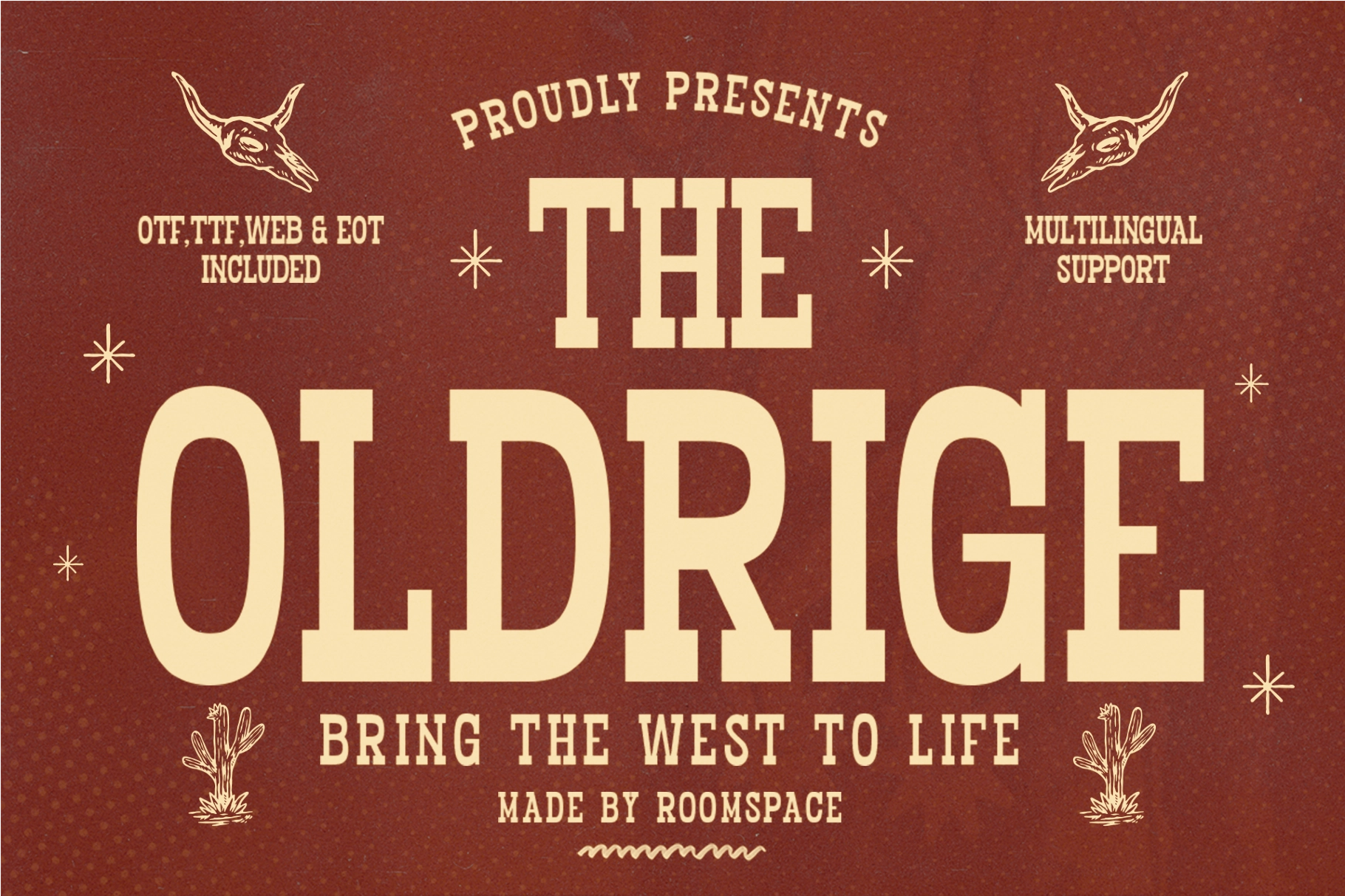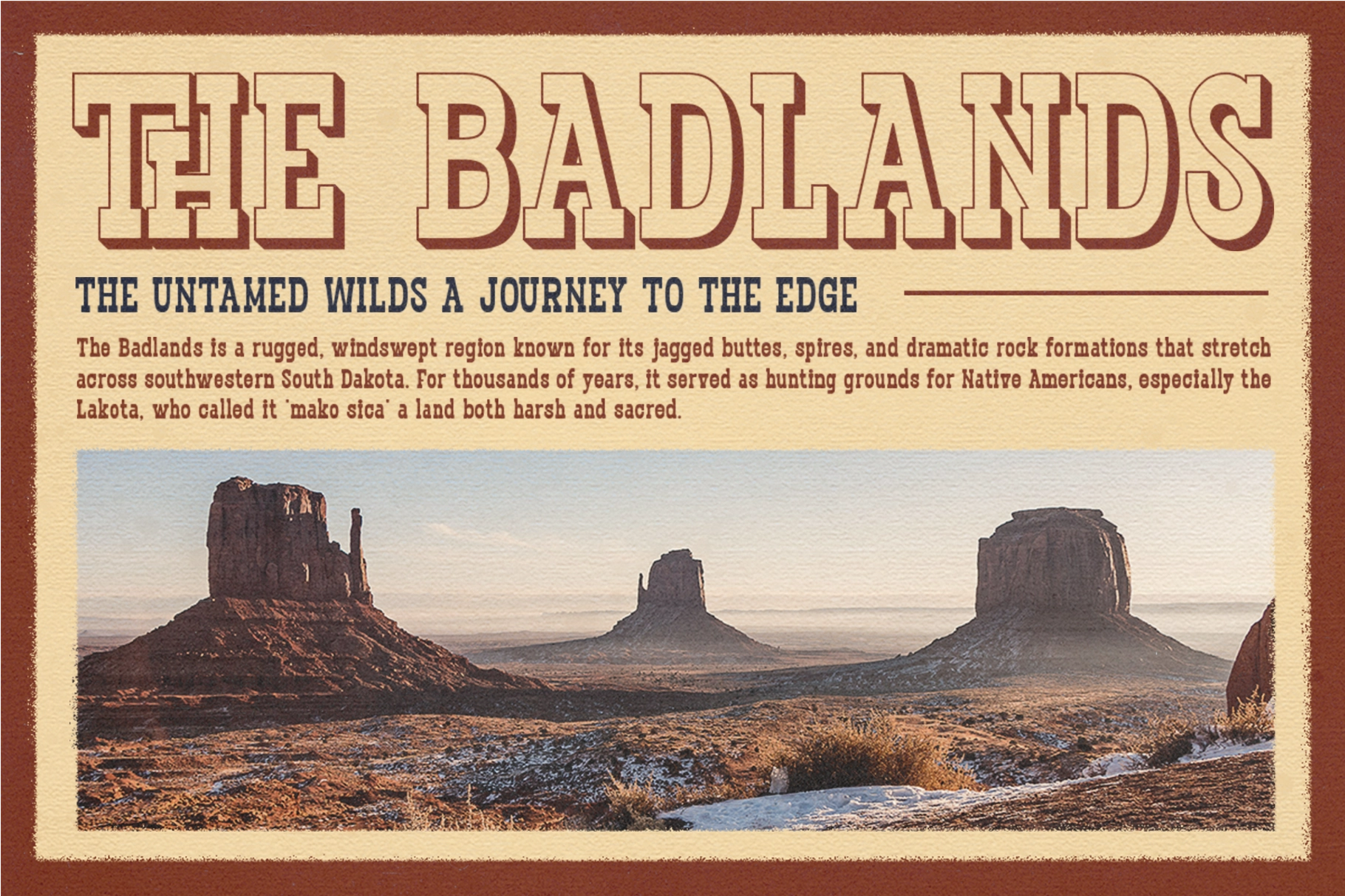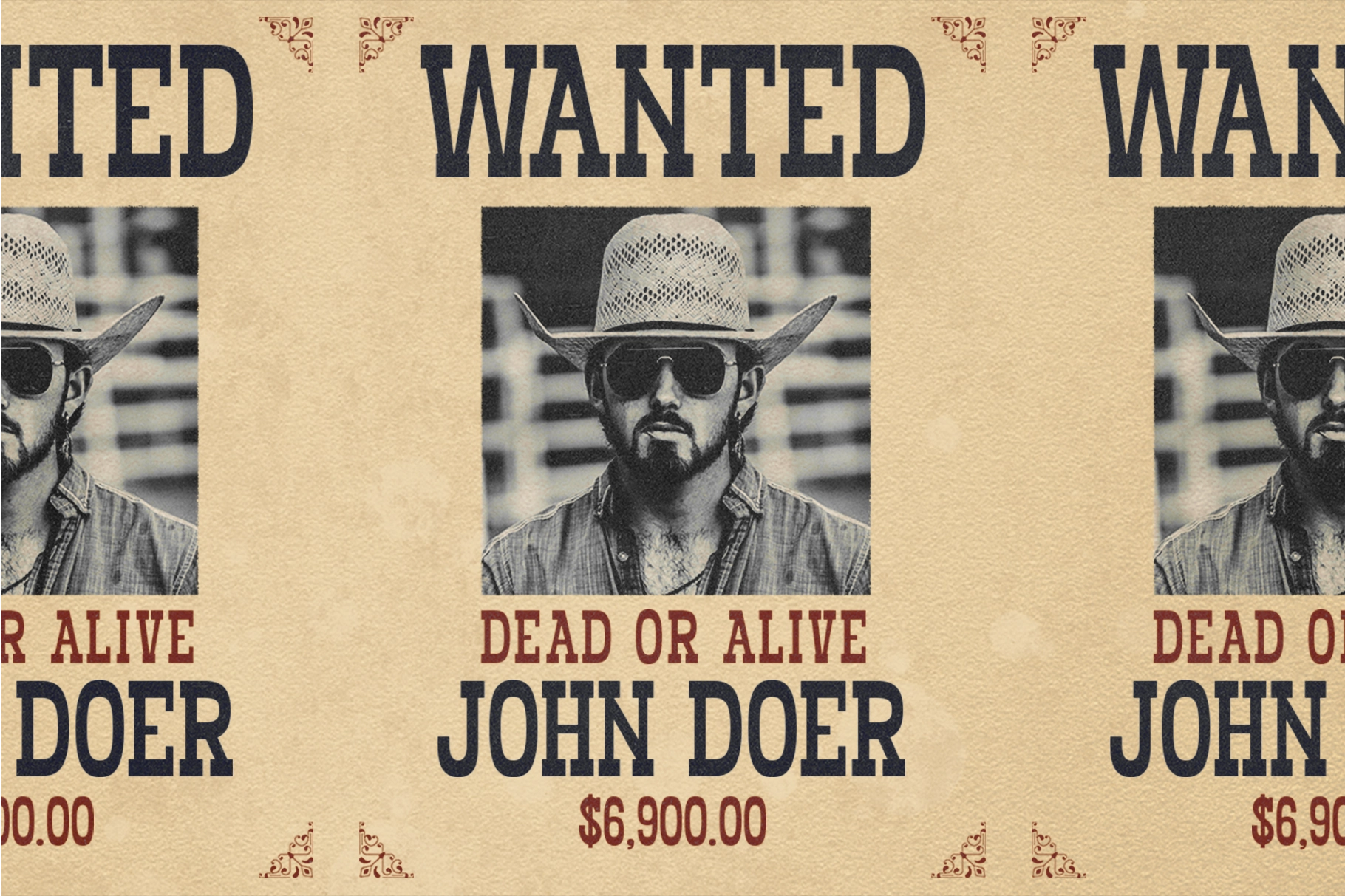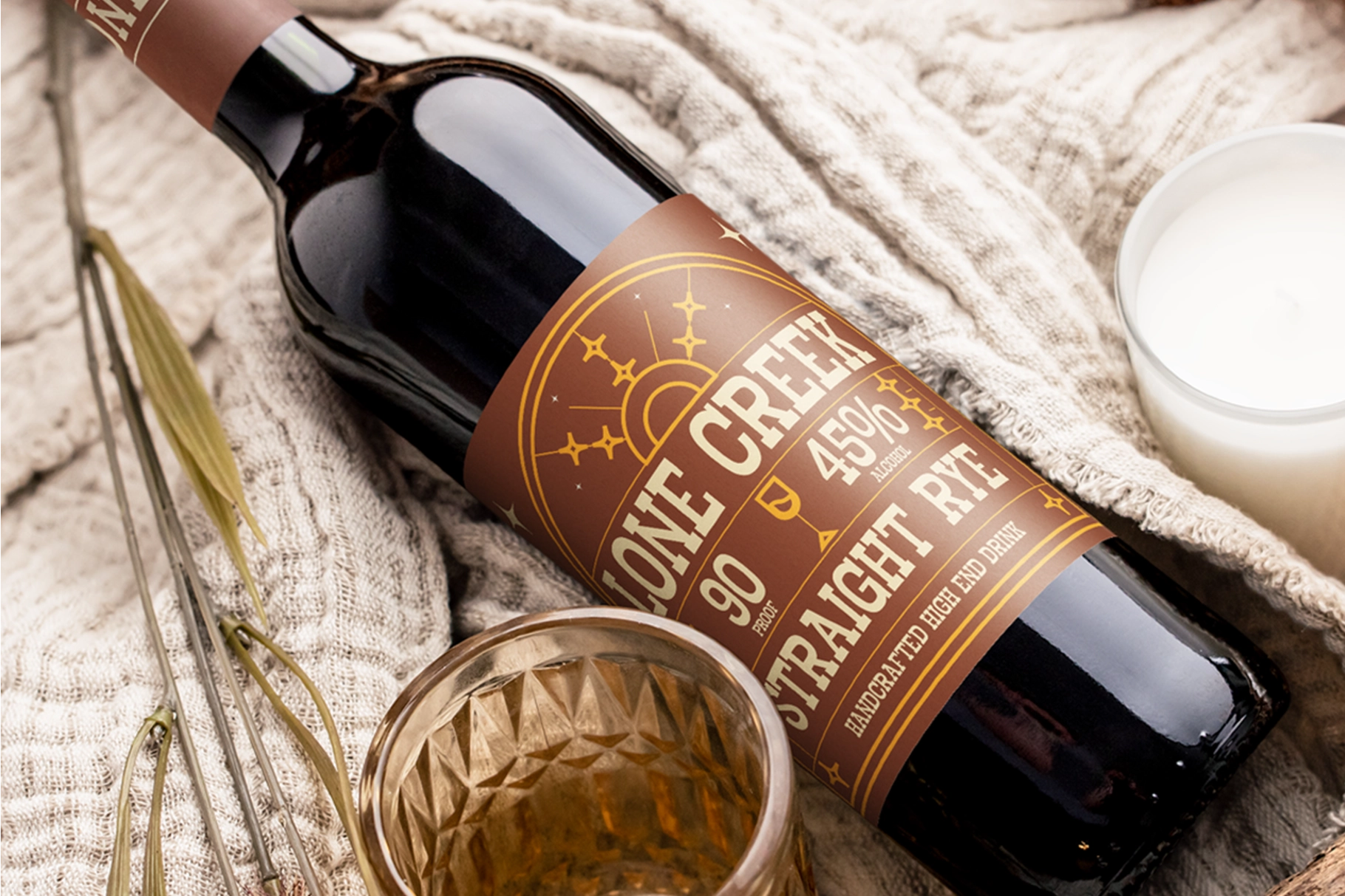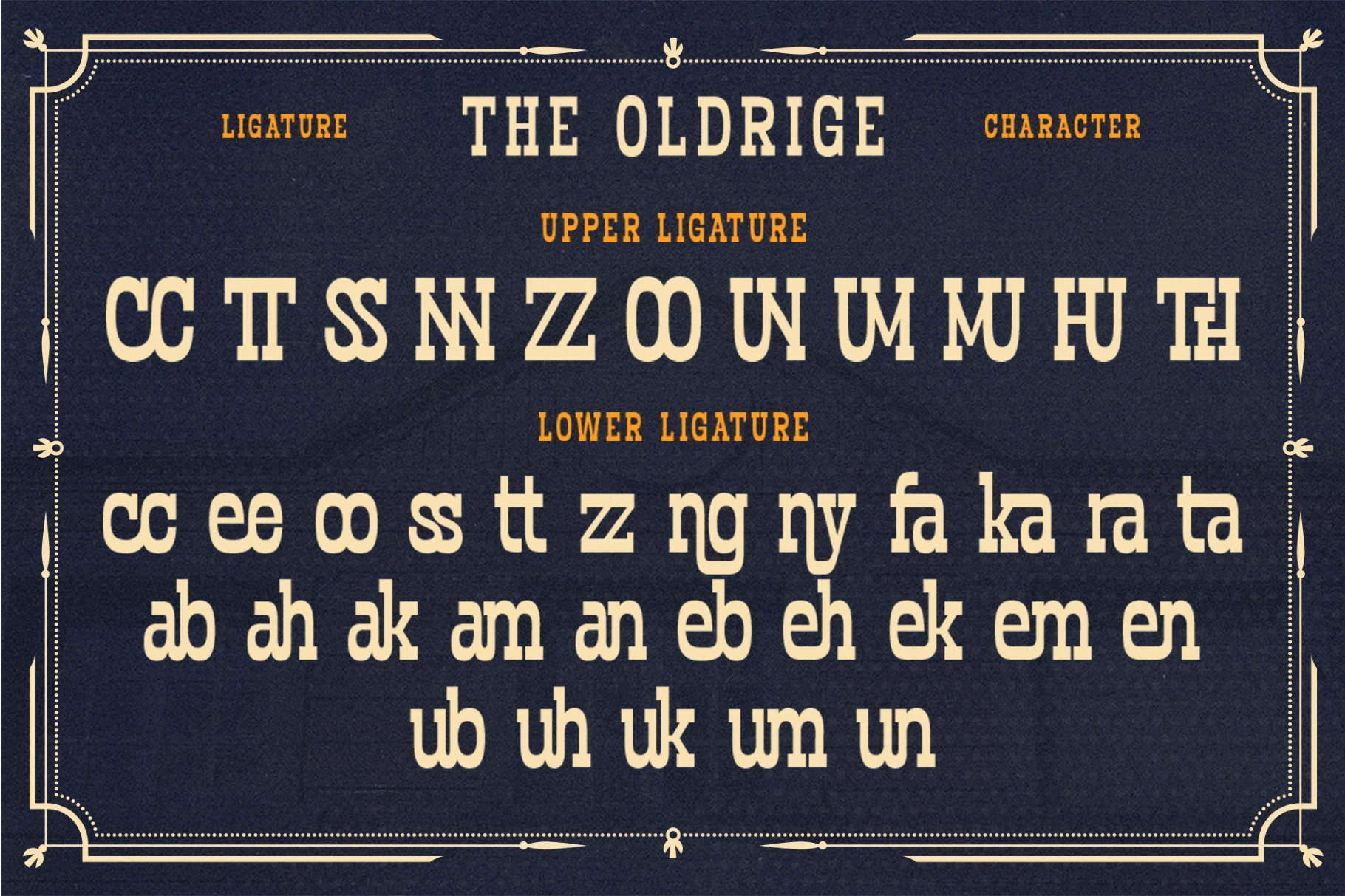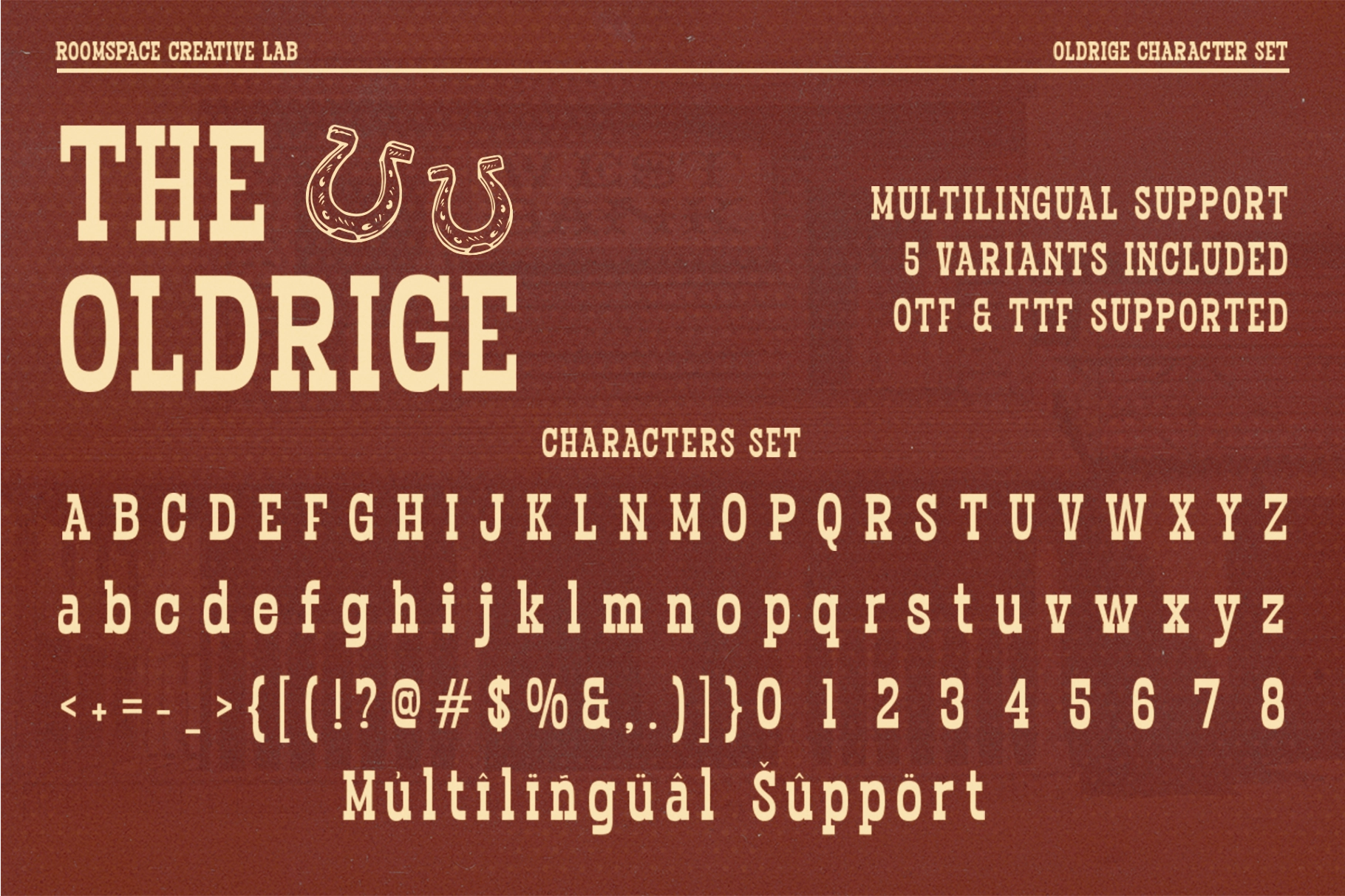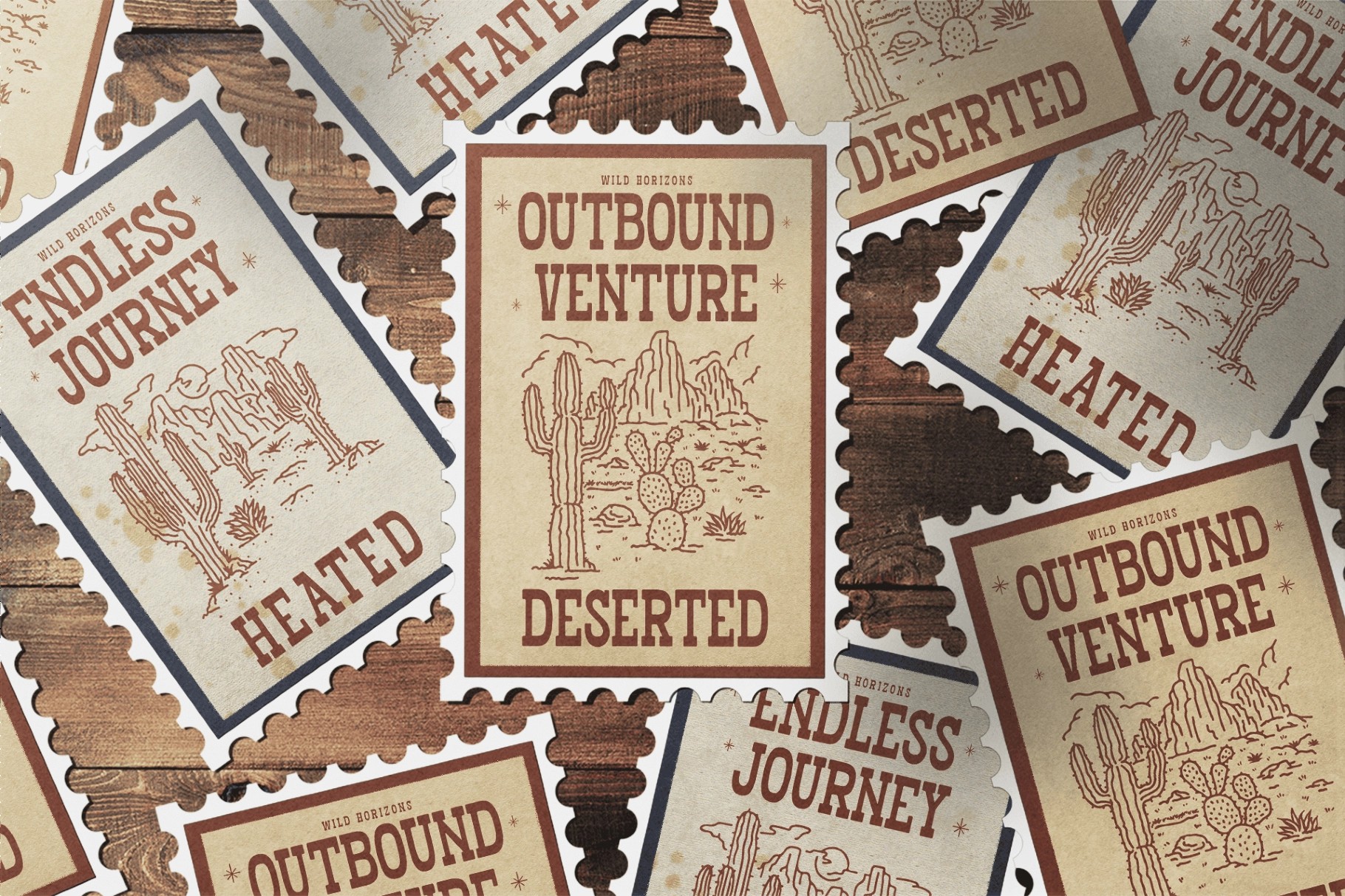
Oldridge - Bold Western Serif Font
A western display serif with high contrast, spurred slab serifs, and a broad wood-type stance. The letters carry the grit of frontier broadsides, saloon signs, rodeo posters, and old newspaper headlines without slipping into costume-shop territory.
Oldridge works for whiskey and spirits branding, barbecue packaging, smokehouse menus, vintage poster headlines, band logos, leather goods labels, western apparel, tattoo lettering, country music editorials, craft beer cans, and event flyers.
- 3 Styles: Regular, Outline, Shadow
- 2 Variations: Regular, Rounded